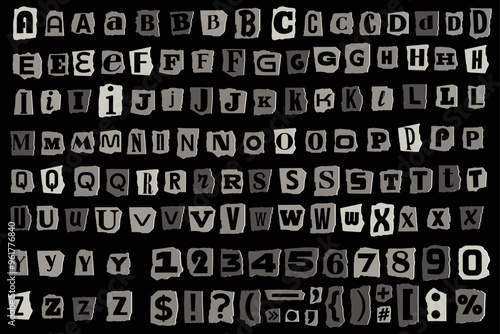
Torn Paper Effect Collage Cut Out Ransom Vector Gray Letters. Cutout magazine ransom alphabet. Blackmail or Criminal Ransom Kidnapper Anonymous Note Font. Letters, Numbers and punctuation symbols.